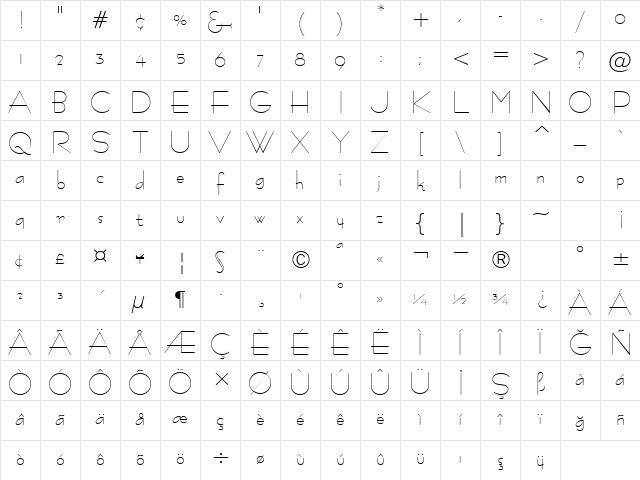
00409 Regular
Design Context for 00409
00409 is a composed and adaptable typeface that performs quietly and consistently across a wide range of design contexts.